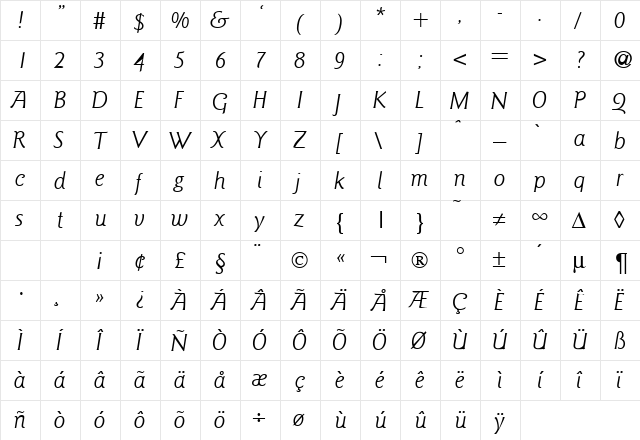
GoudySansTwo RegularItalic Font Preview
GoudySansTwo RegularItalic
Design Context for GoudySansTwo Typeface
GoudySansTwo offers clean, dependable letterforms without strong stylistic allegiance, making it a practical choice for designers who need flexibility. The slanted form adds forward momentum and visual energy.